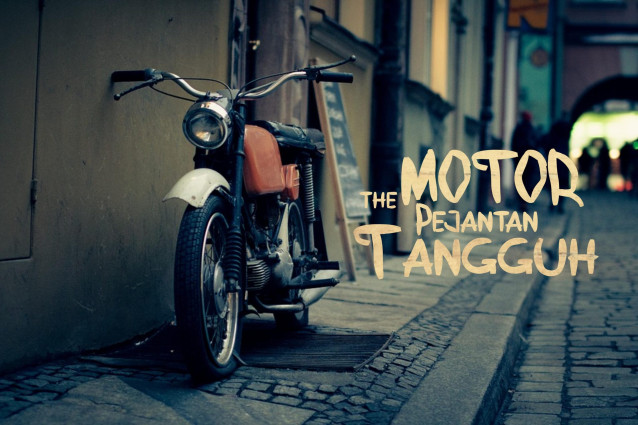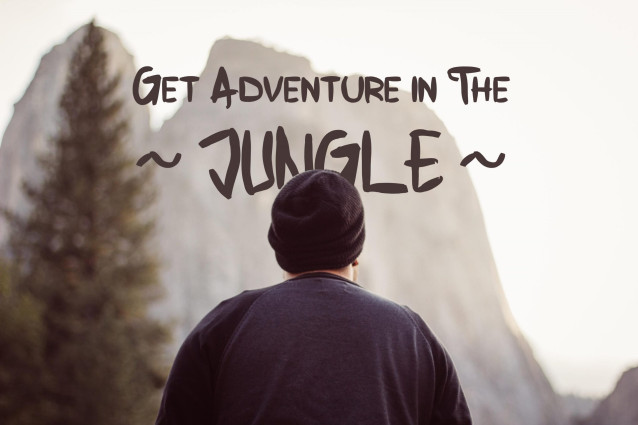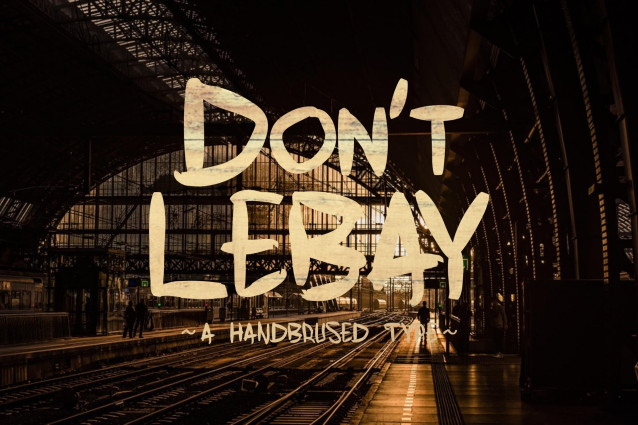
Don’t Lebay Font
Don’t Lebay | A Handbrused – A script font with a smooth handwritten style. Sleplesson is perfect for branding projects, homeware design, product packaging, use in business cards, invitations, etc. Simply a stylish text overlay for any background image or anything that needs a little elegance.